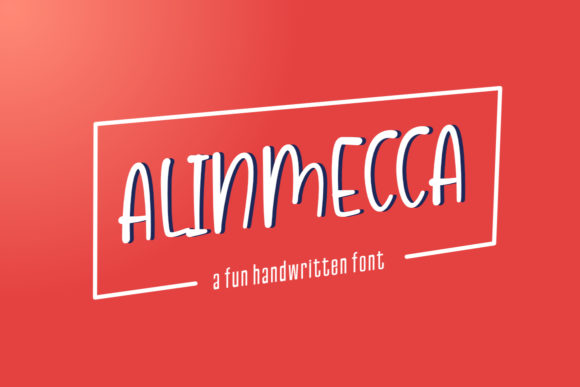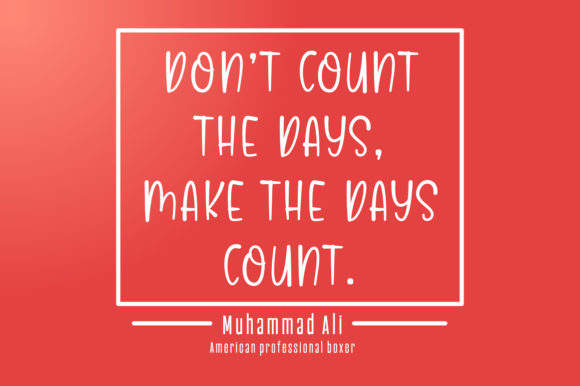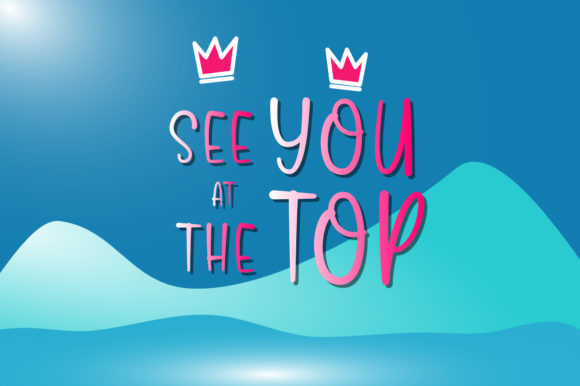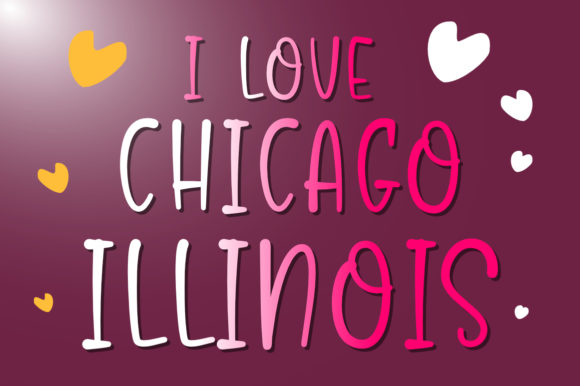
HomeScript FontsAlinmecca Font Script Fonts Alinmecca Font FacebookXPinterestWhatsApp Alinmecca Font Poster 2 Alinmecca Font Poster 3 Alinmecca Font Poster 4 About Alinmecca Font Alinmecca is a sweet and friendly handwritten font with a unique feel. Get inspired by its modern charm! DOWNLOAD NOW People also explored Simple Spooky Story Font Ahsley Font Hello Bethy Font Palomas Font Macedonia Font Farmhouse Font Yadav Font Coney Island Normal Cinderella Font 384 0 TagsAlinmecca Font Previous articleSignature Flavour FontNext articleJavinka Font LEAVE A REPLY Cancel reply Comment: Please enter your comment! Name:* Please enter your name here Email:* You have entered an incorrect email address! Please enter your email address here Website: Save my name, email, and website in this browser for the next time I comment. Personal Use Free Crack Man Personal Use Free Read more about this font Makcex Personal Use Free Read more about this font Propaniac Personal Use Free Read more about this font Bruttney Personal Use Free Read more about this font BLOG Fonts That Capture the Spirit of New York City New York City is more than just a place—it’s an experience, a rhythm, a visual language... Where to Buy American Fonts Online in 2024 Best Fonts for YouTube Videos: Make Your Thumbnails Stand Out Transform Your Website: Elevate Your Typography with 7 Best Web Font Generators